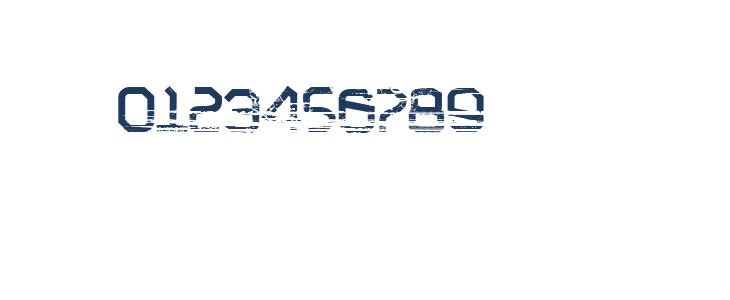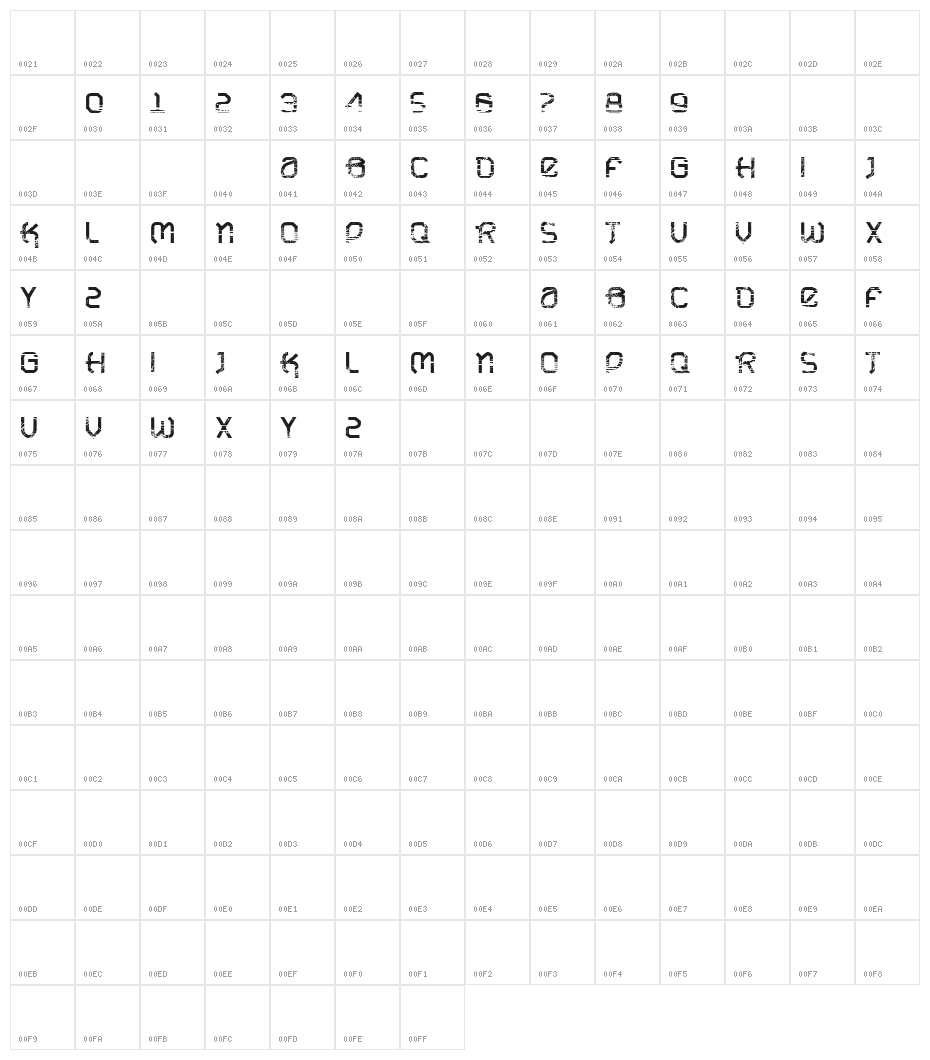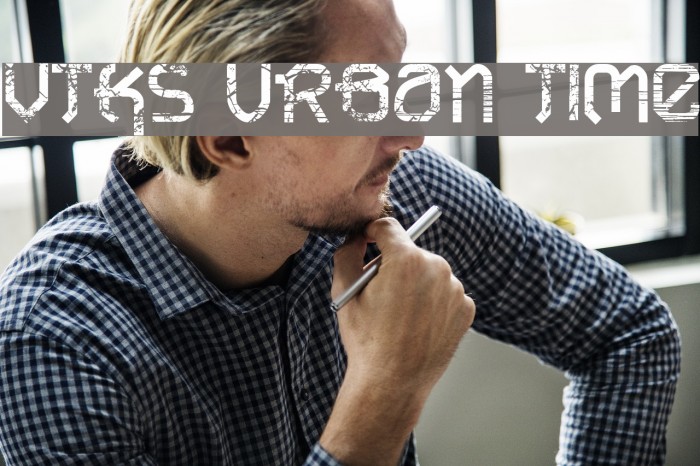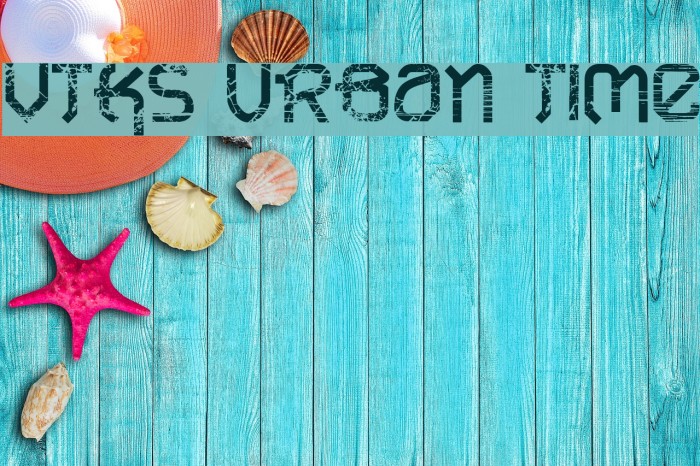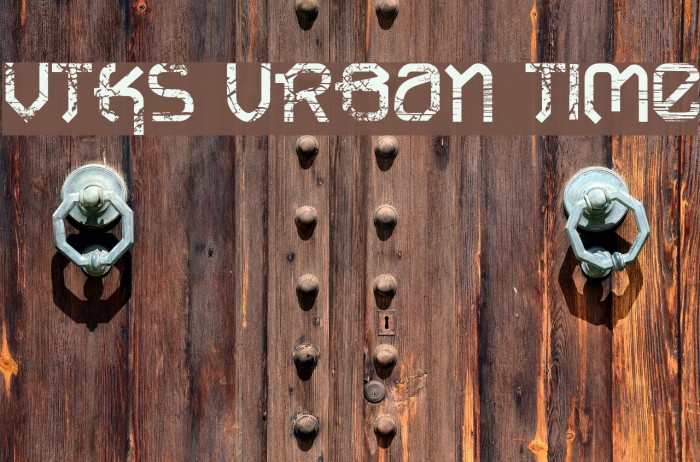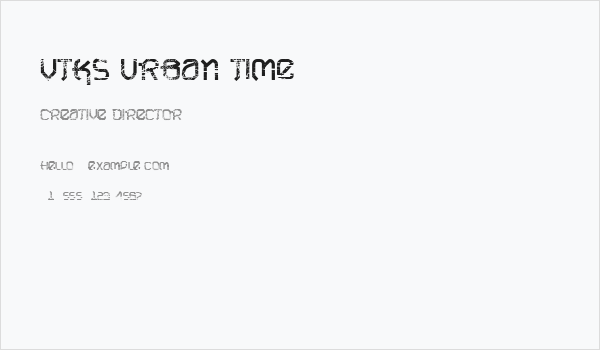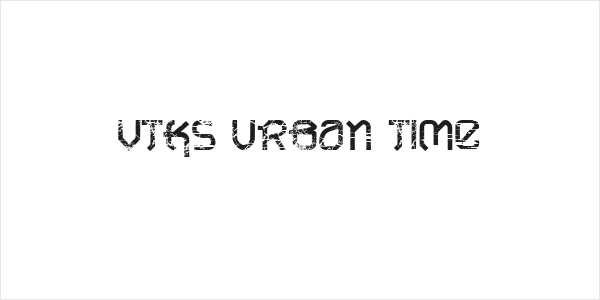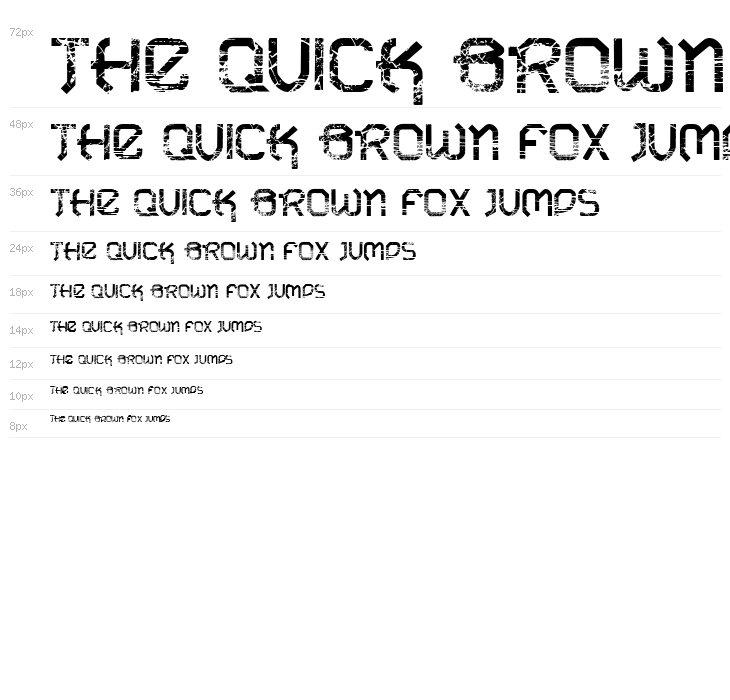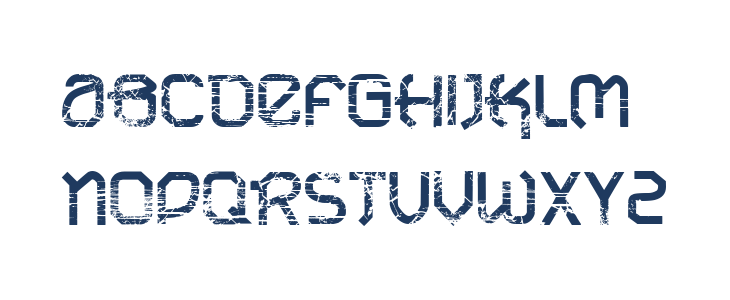
VTKS URBAN TIME Font
VTKS URBAN TIME Description
This font features a bold, distressed style with a modern, urban aesthetic. The characters are designed with a grunge effect, giving them a worn, textured appearance that suggests a sense of ruggedness and edginess. The uppercase and lowercase letters maintain a consistent structure, with angular lines and a blocky form that enhances readability while maintaining a unique visual appeal. The numbers and special characters follow the same design principles, ensuring a cohesive look across all elements. This font is ideal for projects that require a bold statement, such as posters, album covers, or urban-themed designs.
| Overall Style | Modern, Grunge |
| Proposed Projects | Ideal for posters, album covers, urban-themed designs, and streetwear branding. |